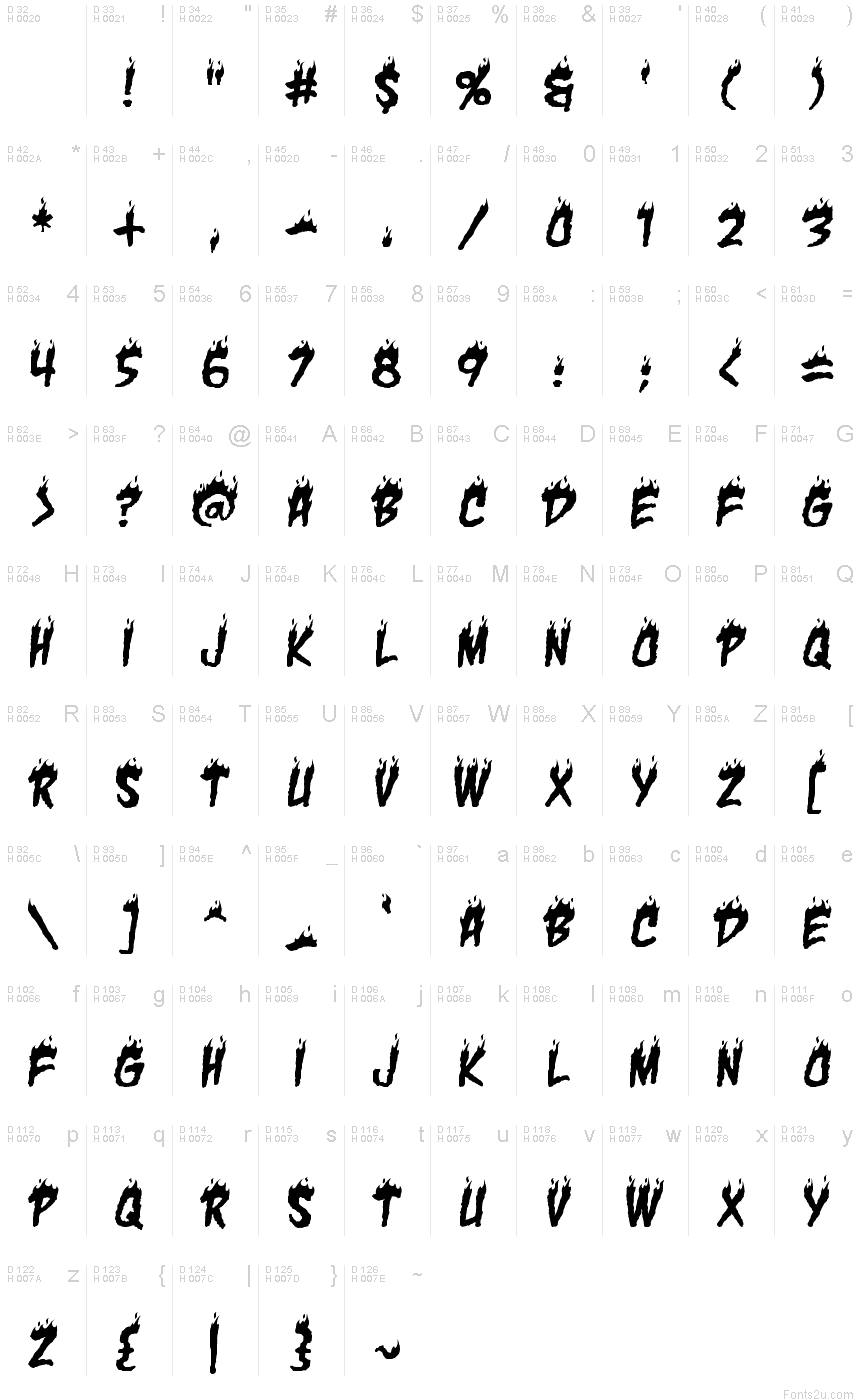
Char BB
Char BB font by Nate Piekos is a free decorative display typeface that looks like letters carved from smoke and flame. Each character feels hand-scorched, with jagged, inky edges and fire licking up from the tops, giving headlines an instant sense of heat, chaos, and motion. The rough, uneven rhythm keeps it wild and energetic, so even a single word feels like it’s shouting off the page.
Using Char BB, you can push horror posters, Halloween flyers, metal band logos, game titles, haunted house signage, and loud YouTube thumbnails into full-on inferno mode. This free font works best big and bold, where the burning silhouettes stay clear and dramatic. For supporting text, pair it with a simple, clean sans serif to let Char BB handle the screams while the rest stays readable.